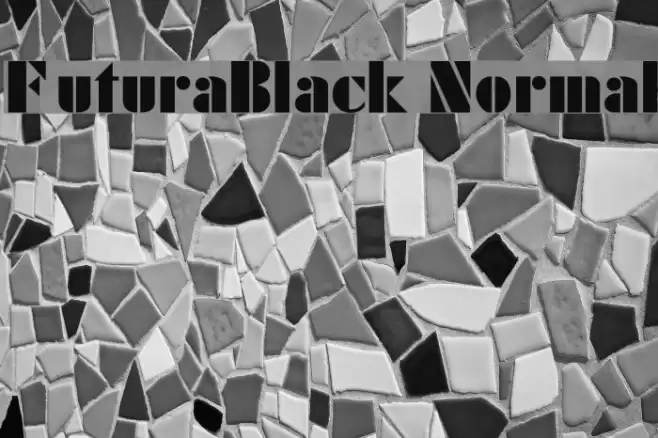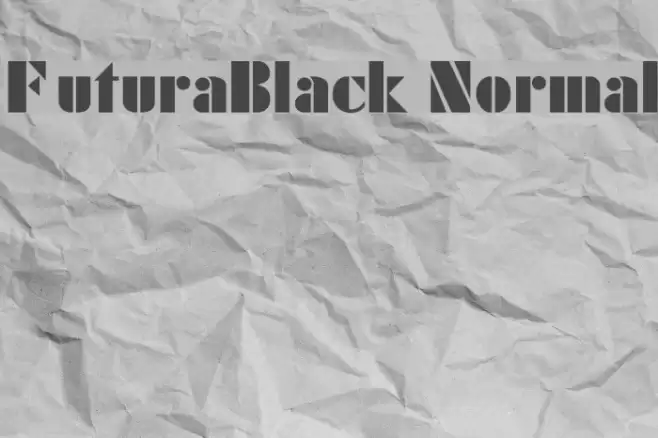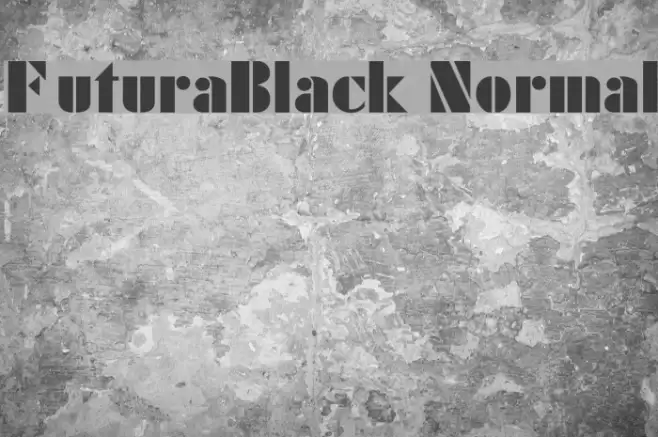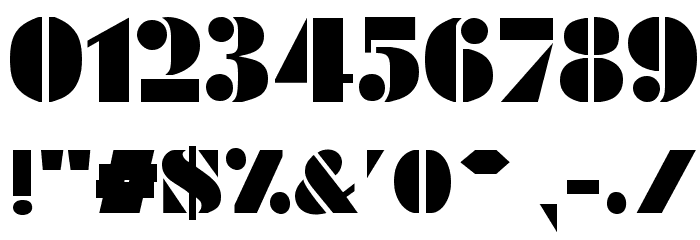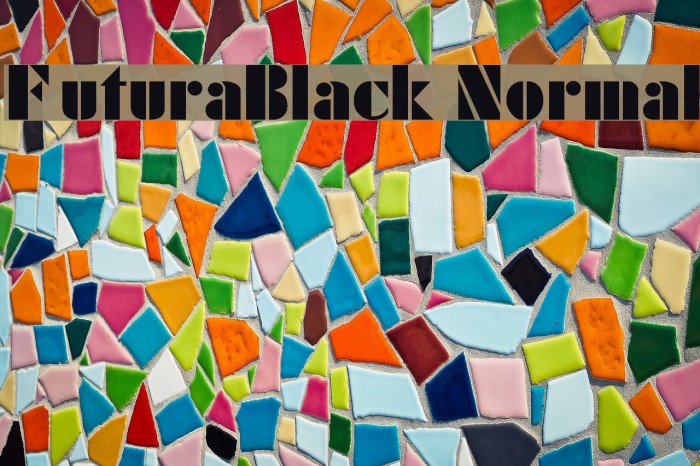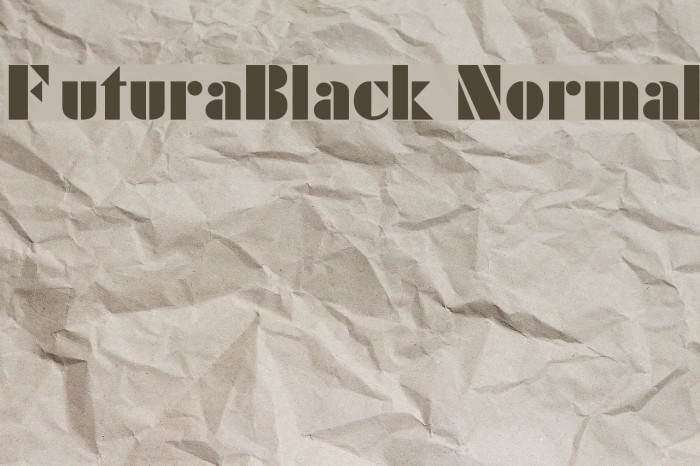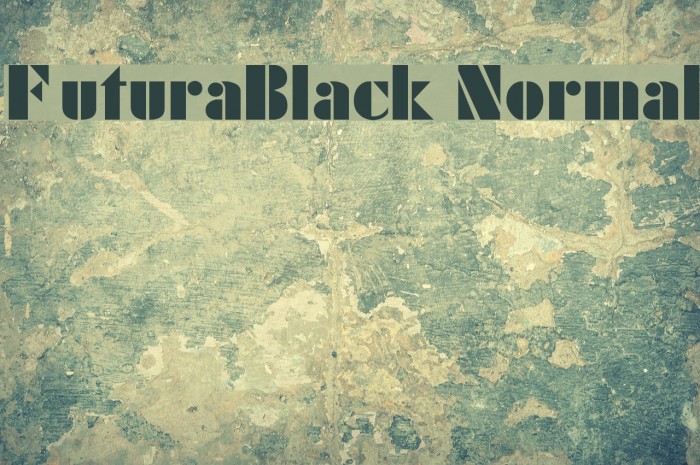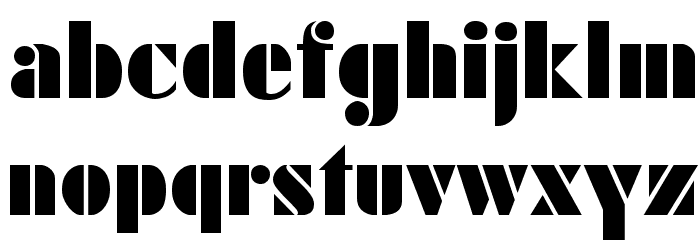
FuturaBlack Normal Font
FuturaBlack Normal Description
This font exhibits a bold and geometric style, characterized by its strong, block-like appearance. The letters are constructed with sharp angles and clean lines, creating a sense of modernity and strength. The uppercase and lowercase letters maintain a consistent weight, contributing to a uniform and cohesive look. The numerals and special characters are designed with the same geometric precision, ensuring readability and visual impact. The font's distinct style makes it suitable for attention-grabbing headlines and impactful designs.
A bold, geometric font with sharp angles and a modern aesthetic from Stencil fonts.
- Proposed Projects: Ideal for branding, posters, and signage where a strong, modern impression is desired.